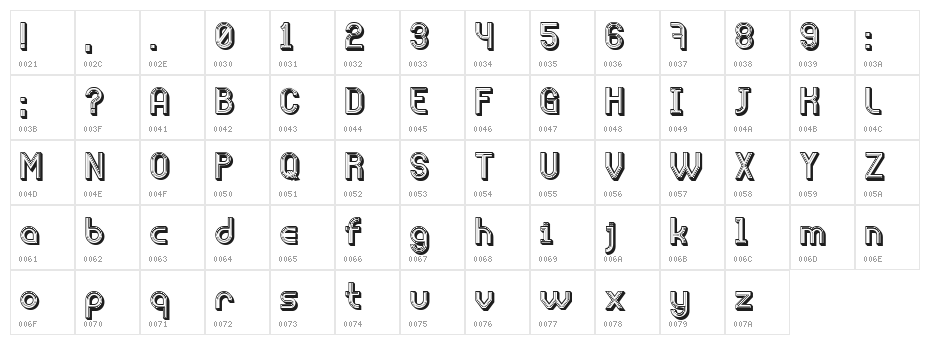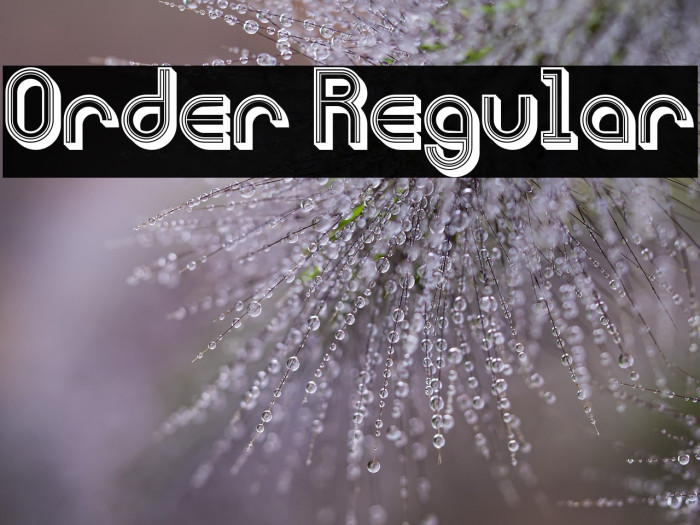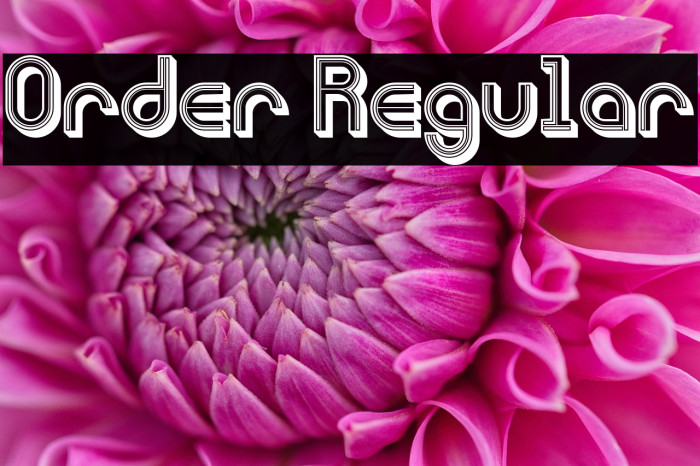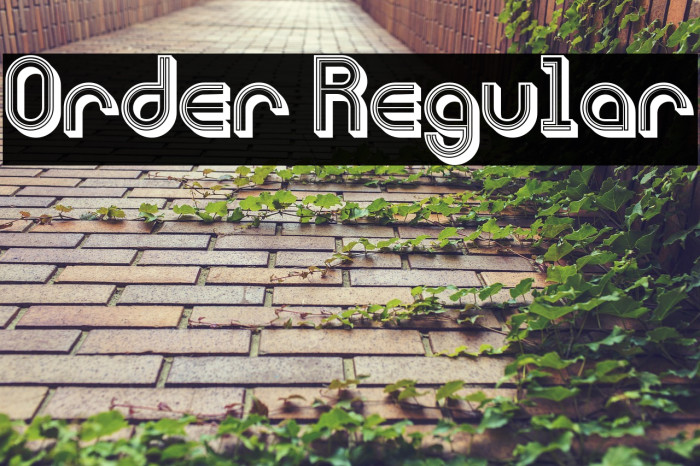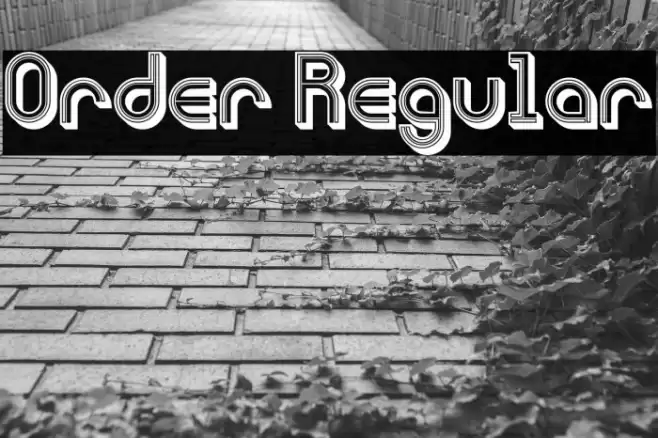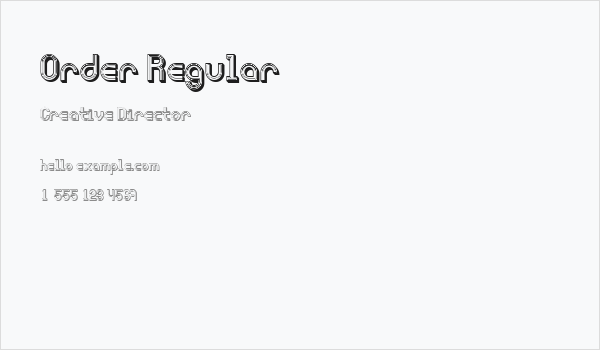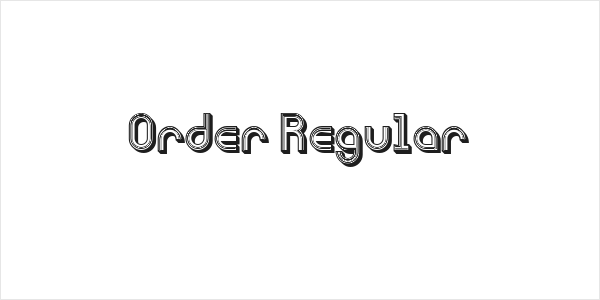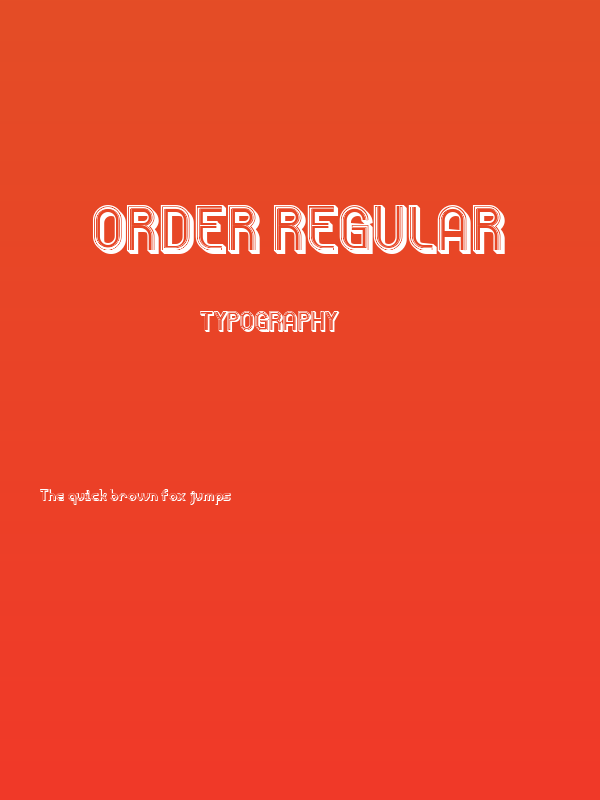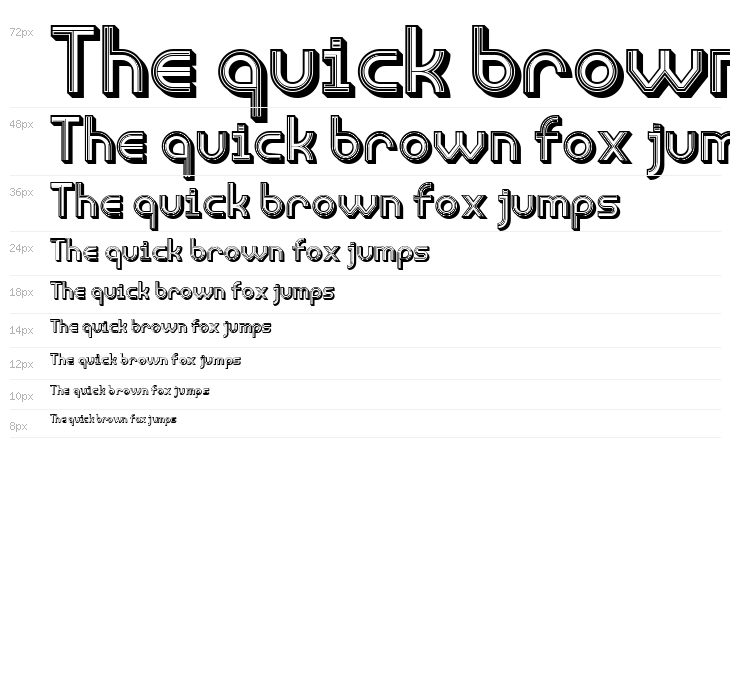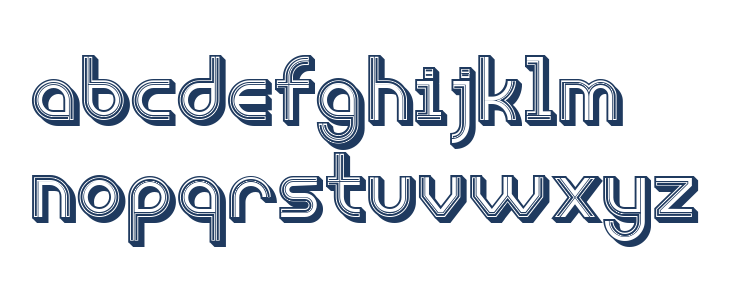
Order Regular Font
Order Regular Description
This font features a bold and striking design with a three-dimensional effect created by layered outlines. The uppercase and lowercase letters maintain a consistent geometric structure, with clean lines and sharp angles. The numerals and special characters follow the same stylistic approach, ensuring uniformity across all glyphs. The font's unique style makes it highly suitable for attention-grabbing headlines and display purposes. Its bold presence is enhanced by the intricate detailing within each character, offering a modern and dynamic appearance.
| Proposed Projects | Ideal for posters, branding, headlines, and any project requiring a bold, eye-catching typeface. |